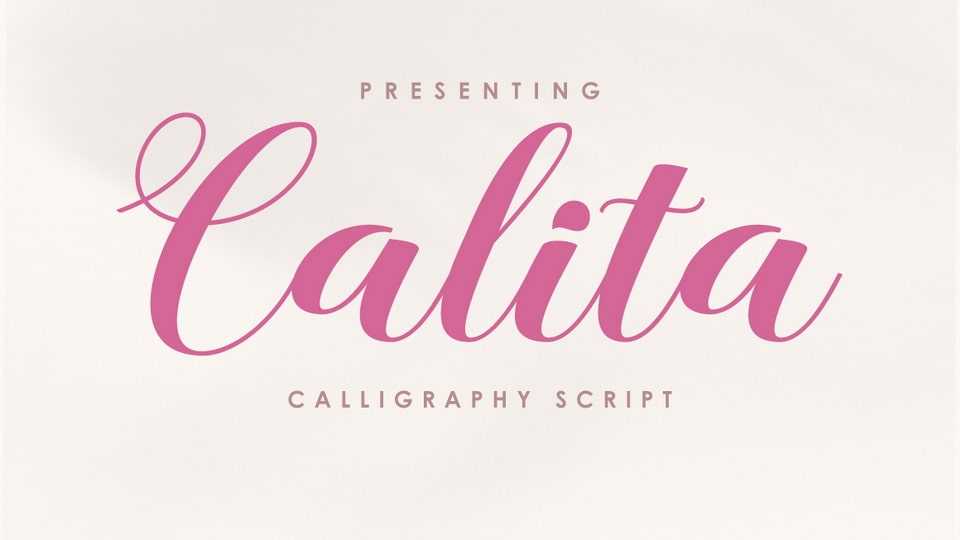
Download Calita font, a modern calligraphy font with thick and firm style that you can get now! This font will look beautiful on all designs, New Year designs, weddings, quotes and invitations, business cards.